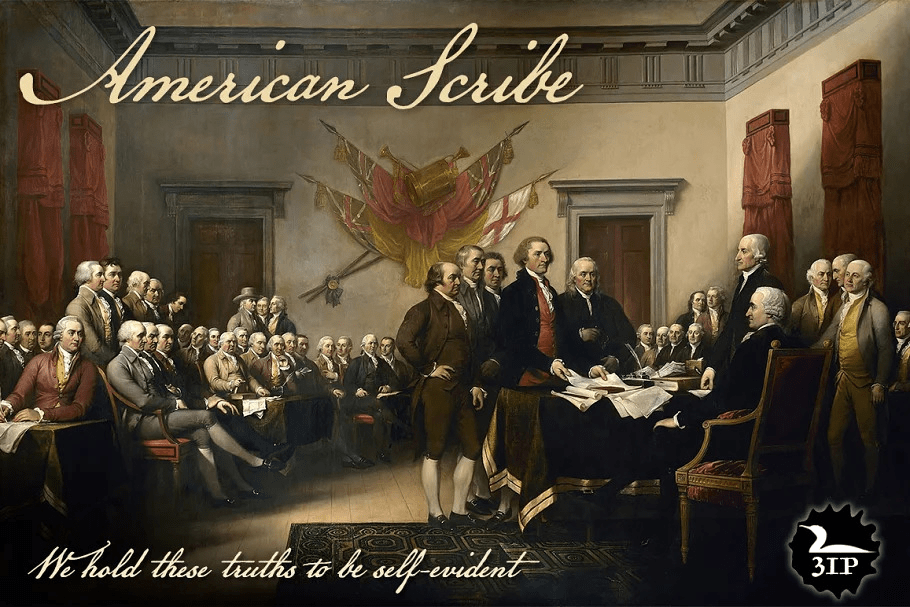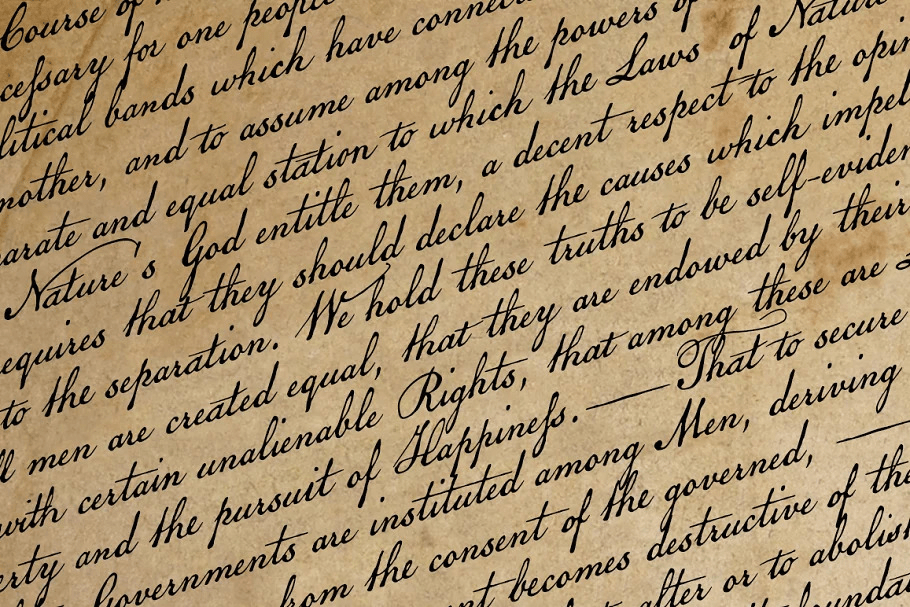
American Scribe
The Declaration of Independence was authored by Thomas Jefferson, but his is not the classic handwriting on the engrossed copies familiar to most Americans. That belonged to Timothy Matlack, an early patriot who fought in the Revolution, sat as prosecutor at Benedict Arnold's court martial, and also penned copies of a number of documents for then-General George Washington. Matlack's script was compact but legible, perfect for the first and most famous of American documents.
Now you, too, can write that way.